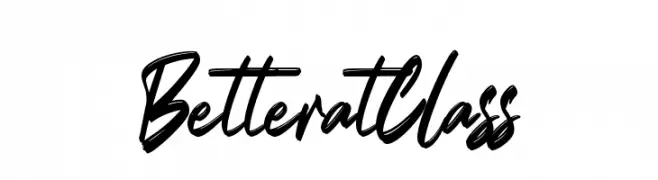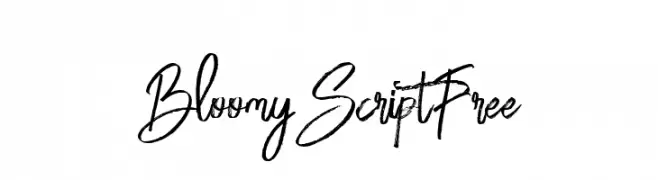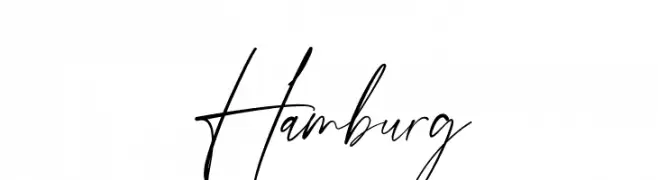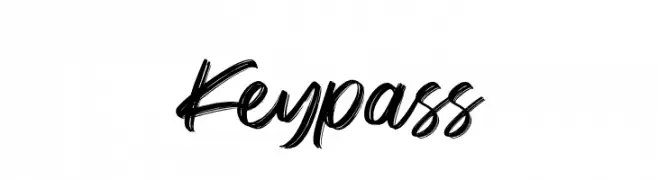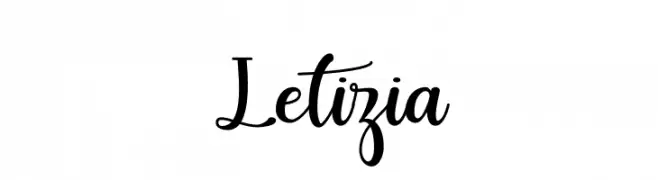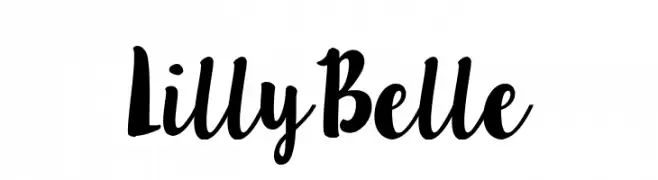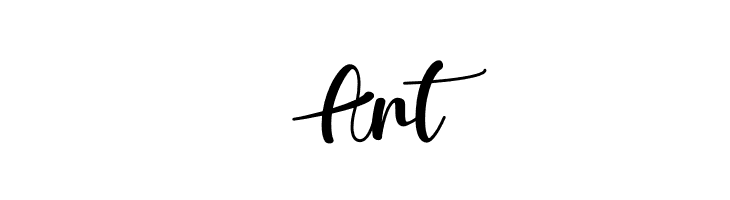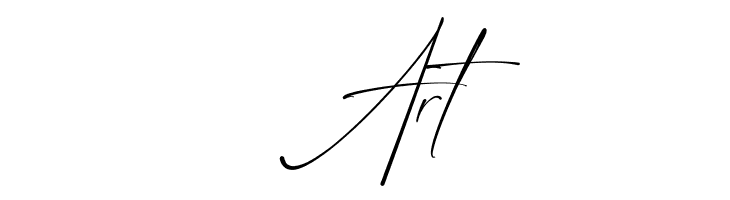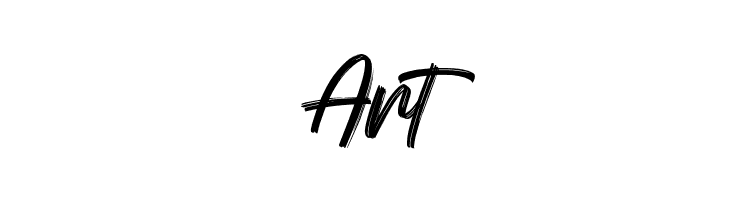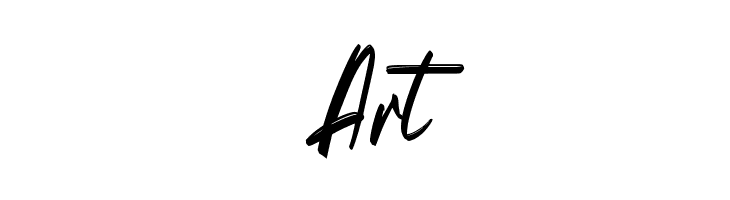
A bold, playful script font with a whimsical and elegant style.
A bold, cursive font with elegant, sweeping curves and a handwritten style.
A flowing, cursive script font with elegant, sweeping strokes.
A flowing, cursive font with elegant, sweeping curves and consistent stroke width.
A flowing, cursive font with elegant, sweeping strokes and a natural handwriting style.
A fluid and elegant handwritten script with dynamic strokes and sweeping curves.
A bold, handwritten font with dynamic, sweeping strokes.
A bold, energetic handwritten font with sweeping strokes and high contrast.
A fluid, cursive script font with elegant, sweeping strokes.
A bold, cursive font with elegant, sweeping curves and expressive flourishes.